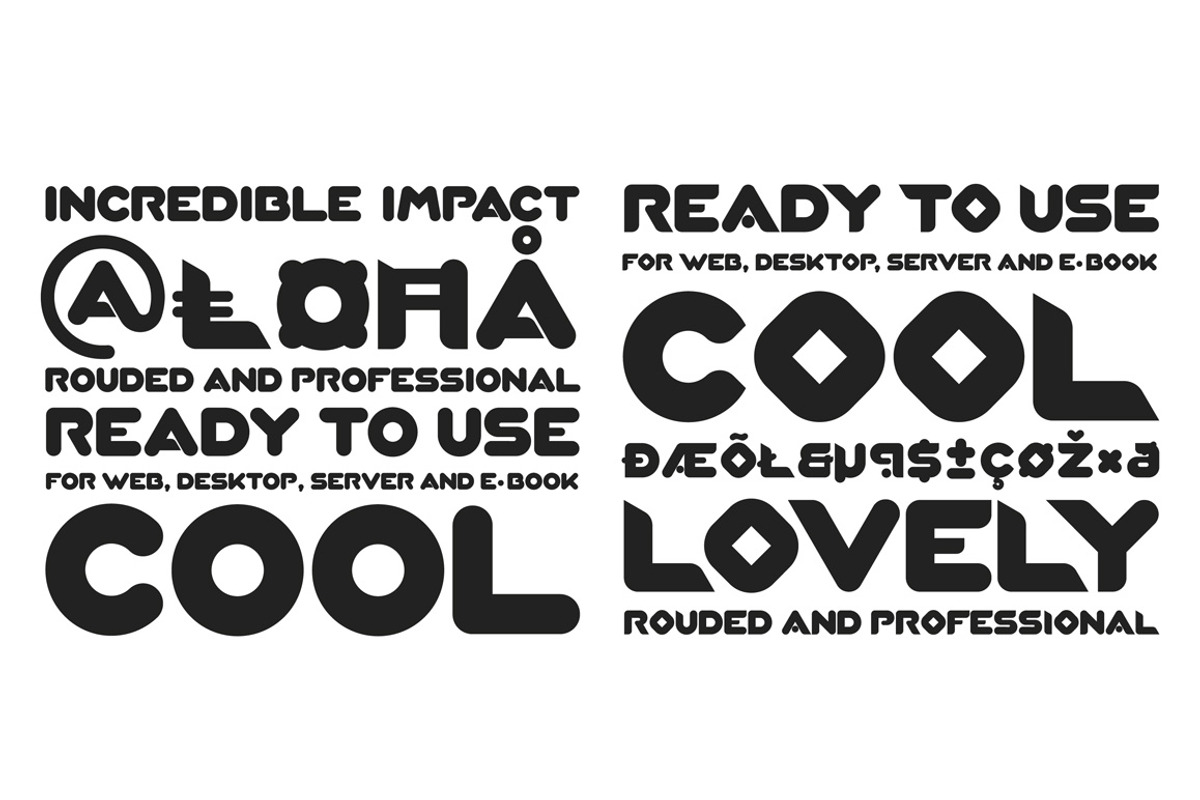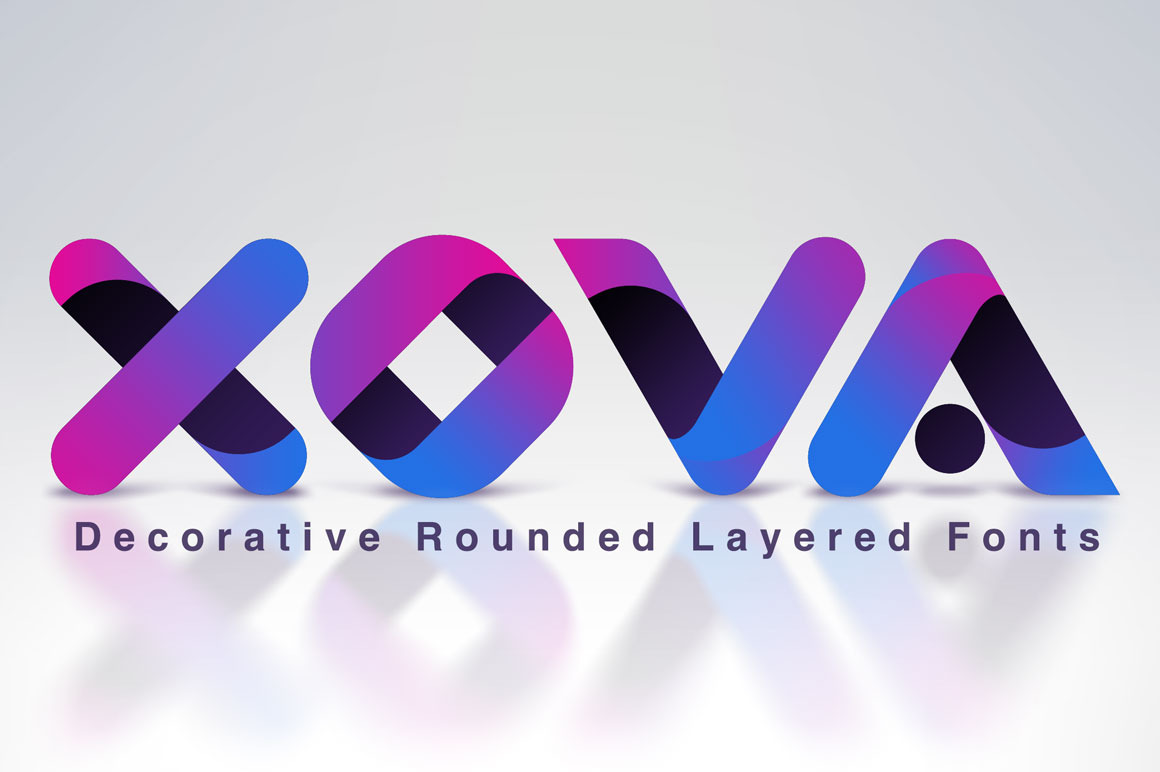
XOVA Layered Font Family
XOVA base, color one, color two, color three and color four, is an 5 font system that can be layered in different ways to create a infinite title effects used commonly in poster and 3D logo design. Xova’s layer combinations give you complete control in producing styles like, modern, 3D, beveled. It can be used alone and/or in layered and allows you adjust leading and kerning. Each font contains the similar metrics, so when your title is set, copy and paste-in-place to create layers of different weights/styles to build out your desired effect. Xova works great in any graphics application that allows you to utilize layers or 3D effects.